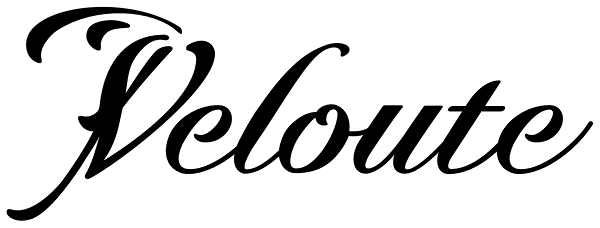
Velouté
Velouté is named after one of the original French Mother Sauces, it is a surprisingly bold and velvety script with delicate flourishes that demand your attention. Velouté's unique mix of classic, contemporary, bold and delicate detail is ideally...